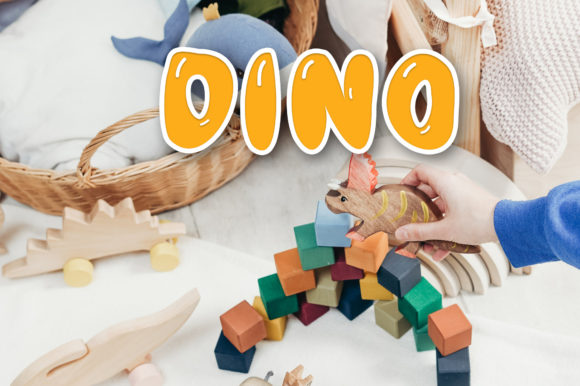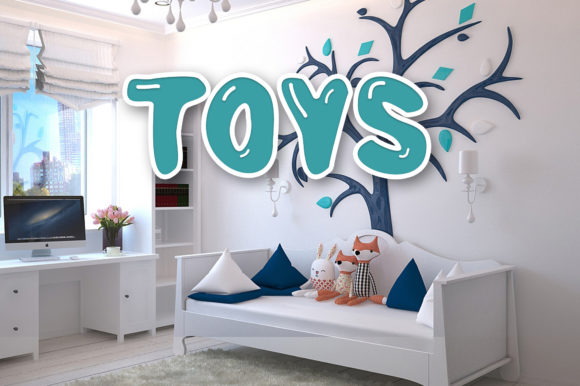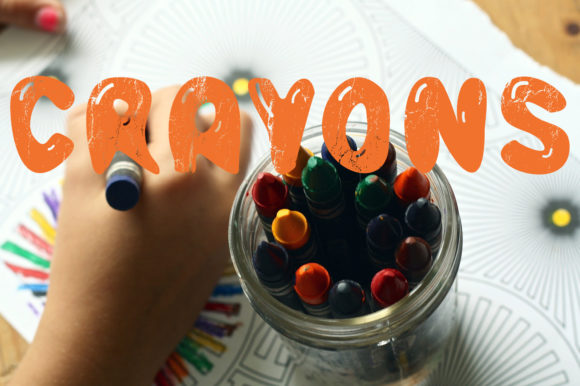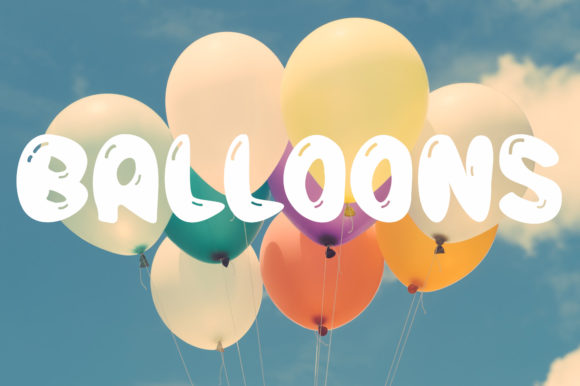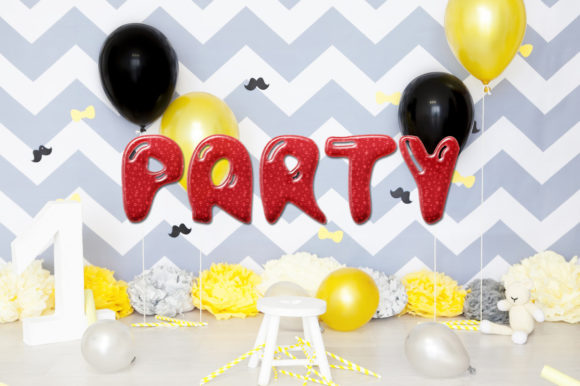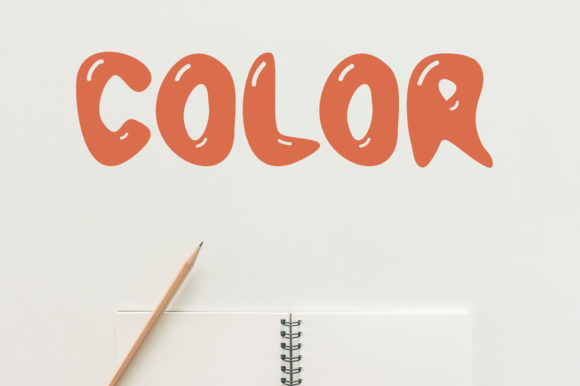
Getting Creative with the Perfect Font
Have you ever been working on a project and suddenly felt a spark of inspiration? You know, that moment when everything comes together, and your ideas start flowing? For me, it was when I stumbled upon the perfect font for a children’s book cover I was designing. The font was none other than the adorable Bubble Font.
This fun and thick lettered display font is exactly what you need to add a touch of sweetness and friendliness to your designs. Whether you’re working on a project for kids or a school-related creation, the Bubble Font is sure to become your go-to choice. Its unique style makes it perfect for capturing the imagination and creativity of young minds.
Bubble Font Key Features
- Font Family: Bubble Font is a unique, handwritten font family that comes in multiple styles, including regular, bold, and italic.
- Size: Bubble Font includes a wide range of font sizes, from 8pt to 72pt, making it suitable for various design applications.
- Resolution: The font is designed to be scalable, with clear and legible characters at any resolution, from 72 DPI to 300 DPI.
- Unique Characteristics: The font’s distinctive, bubbly design makes it perfect for creating playful, whimsical, and eye-catching text effects.
Bubble Font Review
Overall, I found the Bubble Font to be a fun and playful addition to any design project. ✨ Its rounded edges and bubbly texture make it perfect for creating a whimsical atmosphere.
One of the things that I think works well about the Bubble Font is its versatility. ✨ It can be used for a wide range of projects, from children’s books to advertisements and even logos. It’s also highly customizable, allowing designers to easily adjust the font size, color, and spacing to fit their needs.
Another advantage of the Bubble Font is its legibility. ✨ Despite its playful appearance, it’s surprisingly easy to read, making it a great choice for projects where clear communication is key.
- ⚠️ Limited font weights: The Bubble Font only comes in a few weights, which can make it difficult to achieve the perfect level of boldness or lightness.
- ⚠️ Limited language support: The font only supports a limited number of languages, which can be a problem for projects that require multilingual support.
Overall, I would say that the Bubble Font is a great choice for designers who want to add a touch of whimsy to their projects. While it has some limitations, its versatility and legibility make it a valuable addition to any design toolbox.
Bubble Font is commonly used in:
- Wedding and baby shower invitations
- Illustrations and graphics for social media